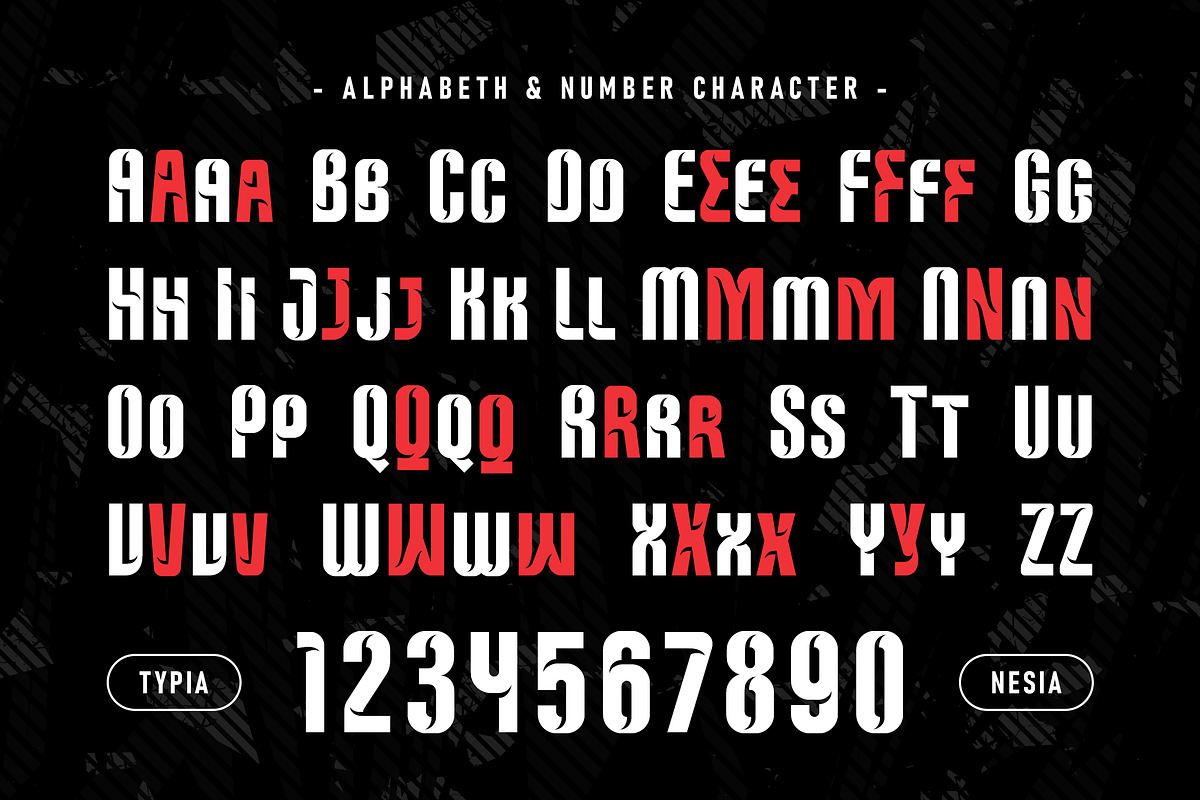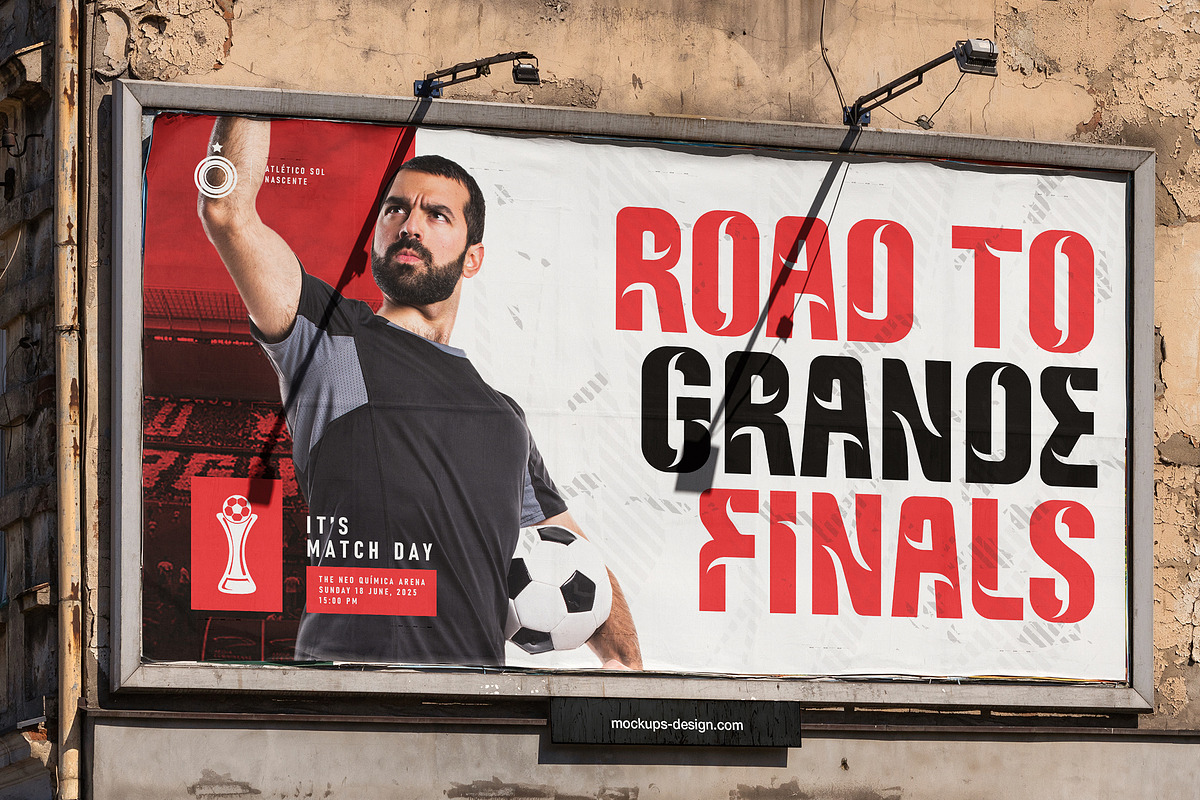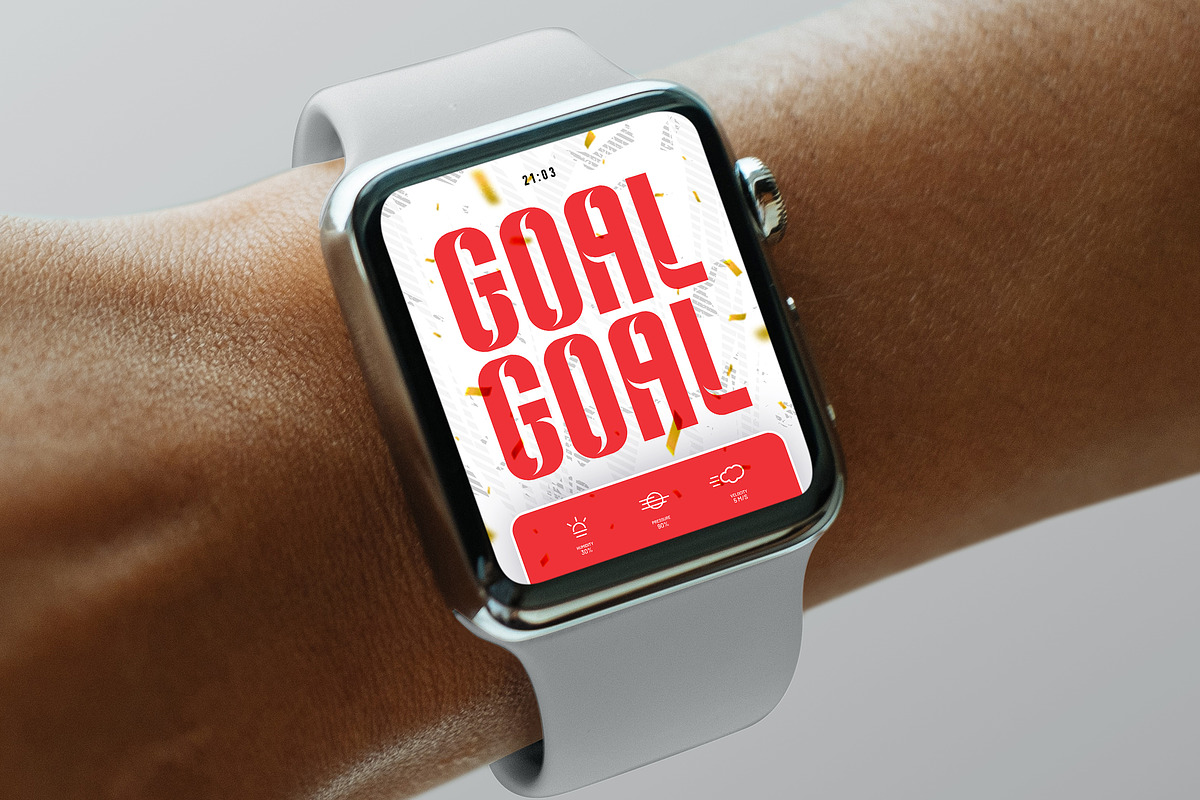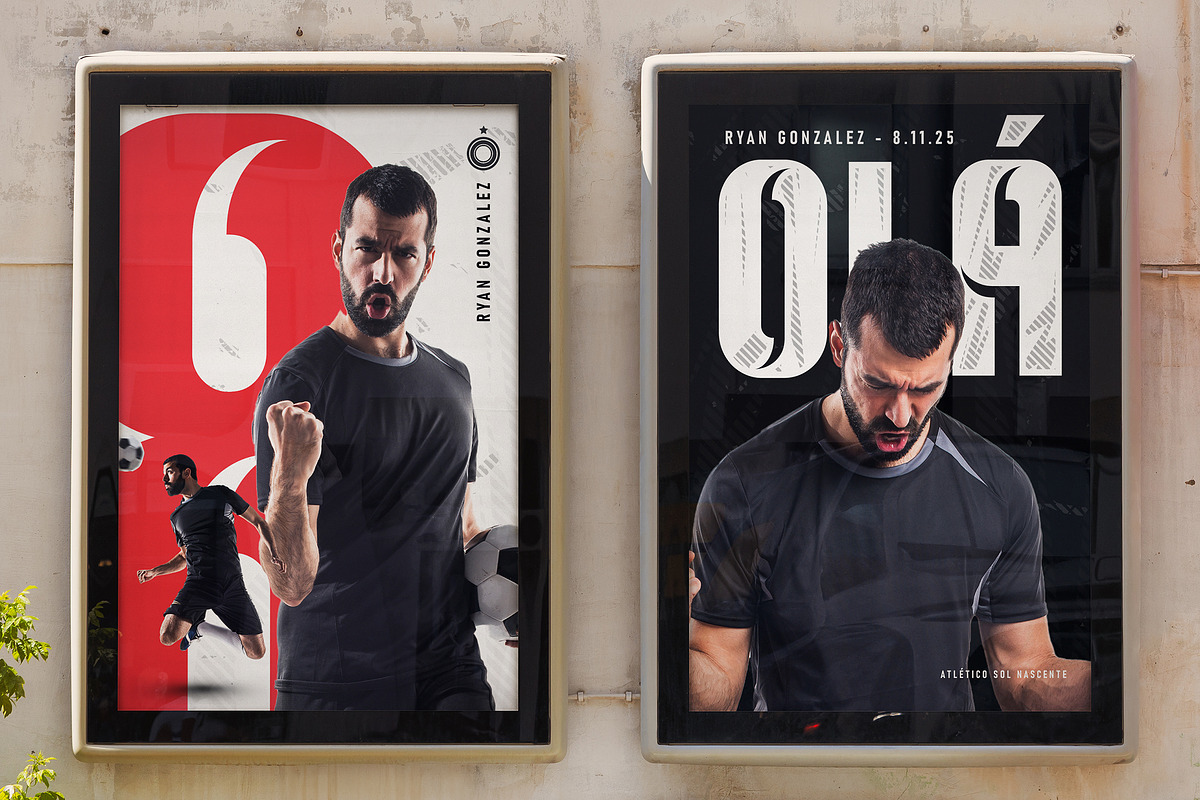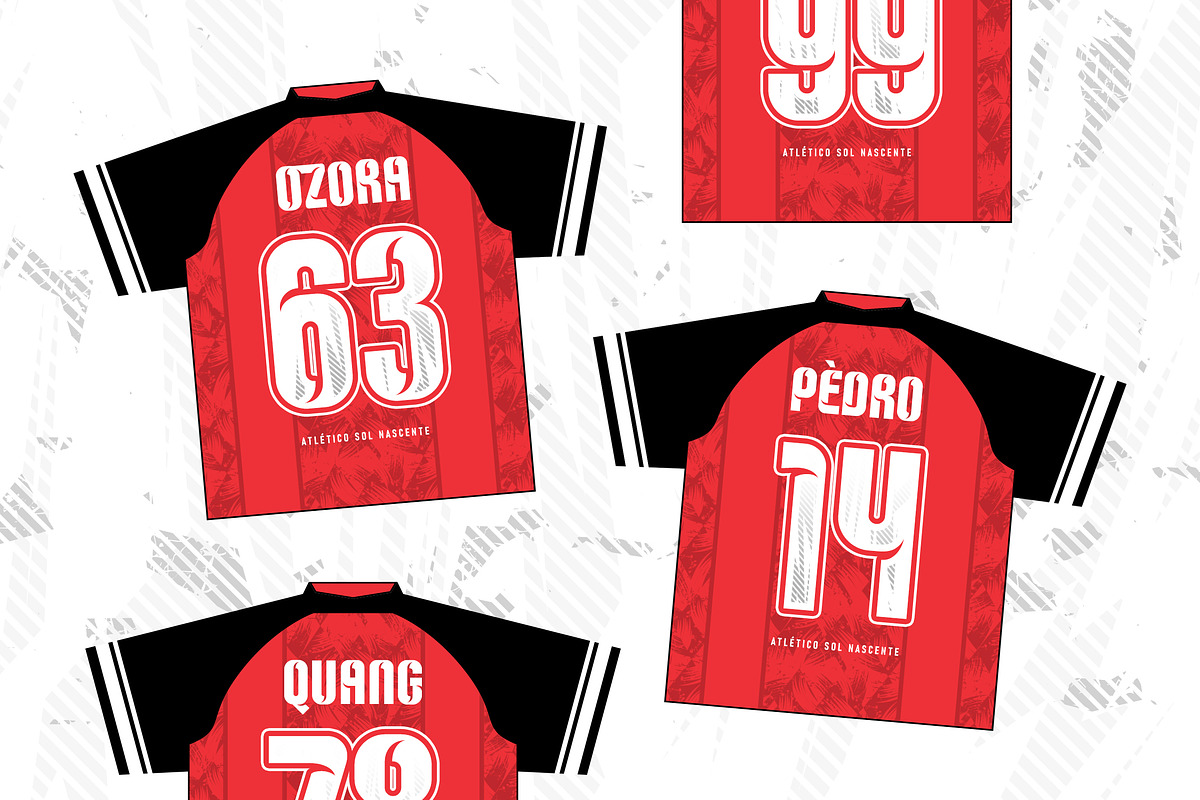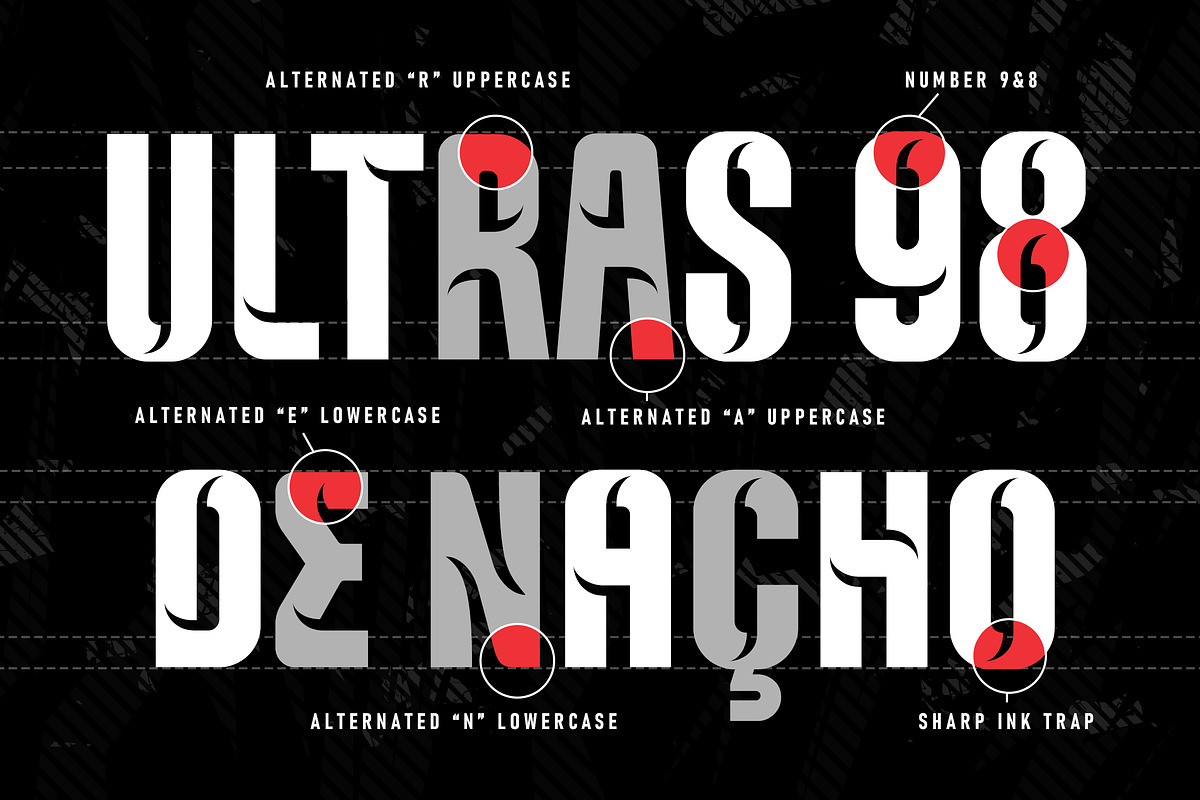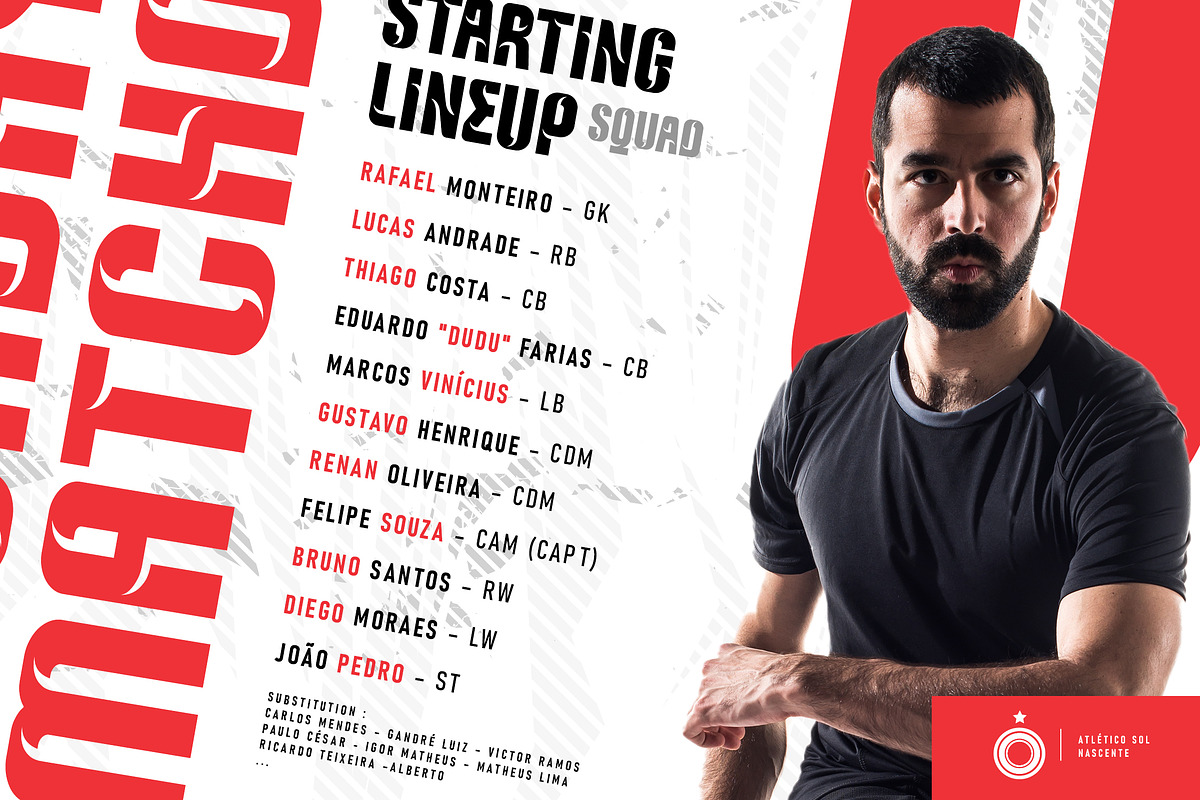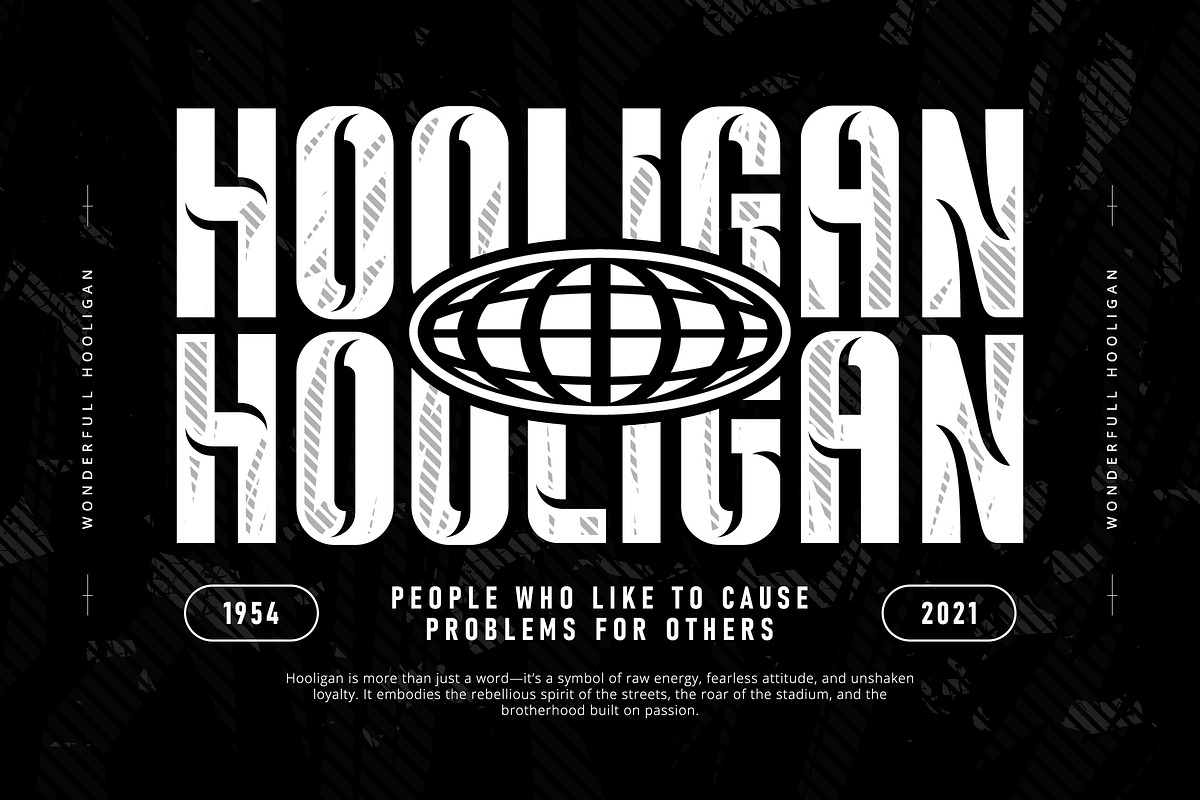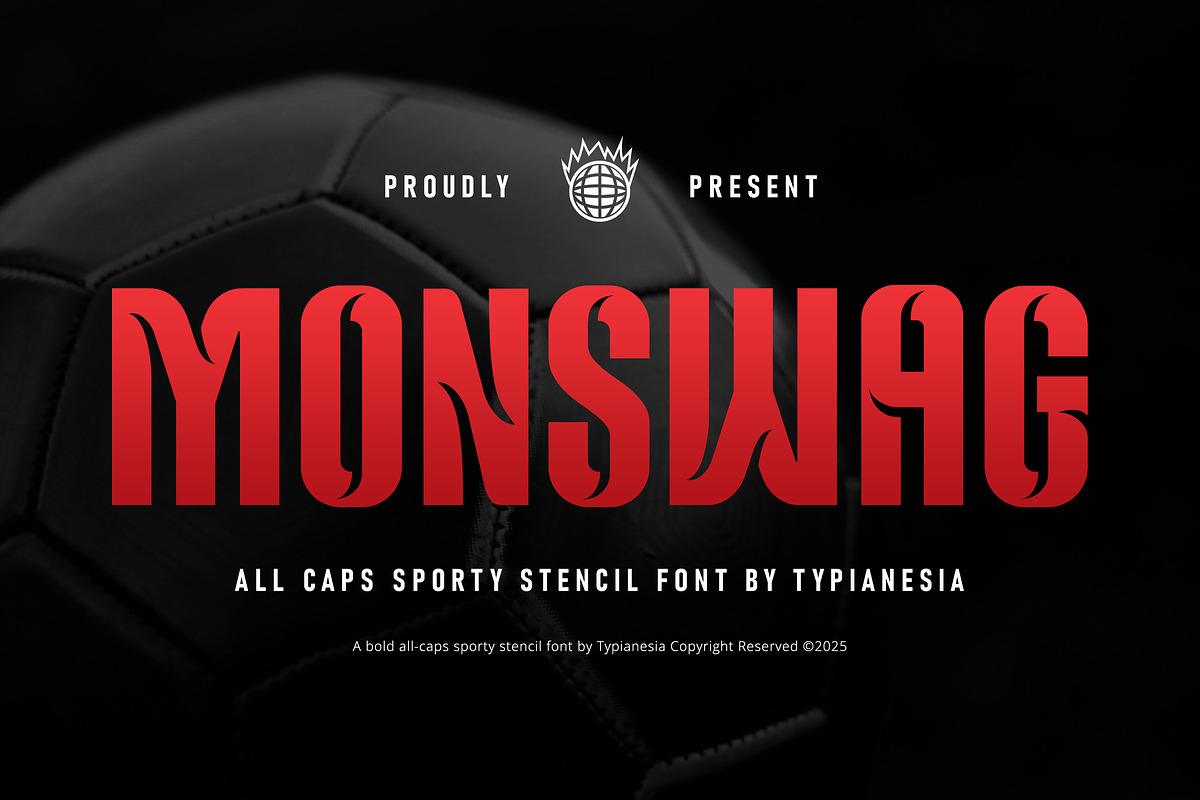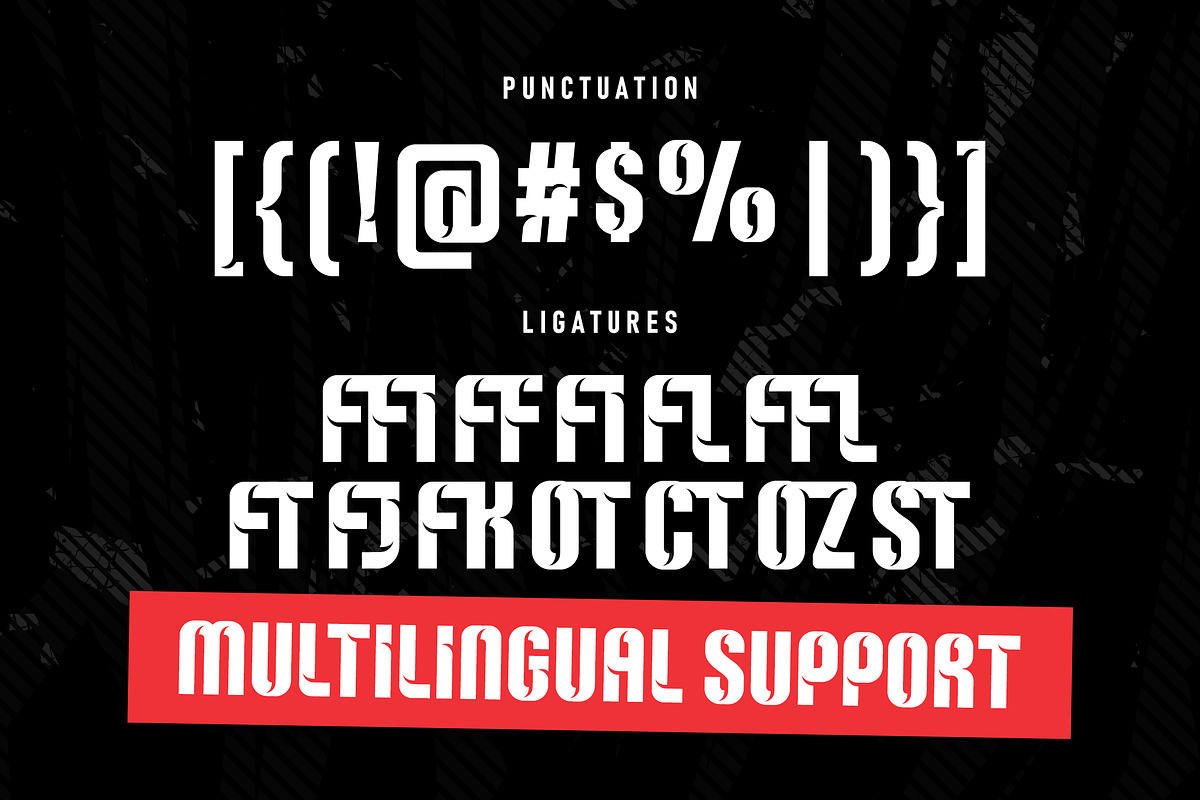
Monswag - Modern Condensed Sport
Monswag - Modern Condensed Jersey Sport Game Font - Bold Tech Logo Display Font
Monswag is Modern Condensed Jersey Sport Game Font built for speed, energy, and high impact. This typeface is exceptionally bold and tall, featuring a tight condensed structure and unique stencil-cut detailing that makes it perfect for commanding headlines and limited display space. It's an ideal choice for sporty branding, providing professional nameset and numberset typography for jerseys, powerful team logos, and high-octane graphics for games, tech, web, urban streetwear, and any projects that require a touch of Modern, fire and fantasy, Monswag delivers a contemporary, authoritative look that will make your design stand out.